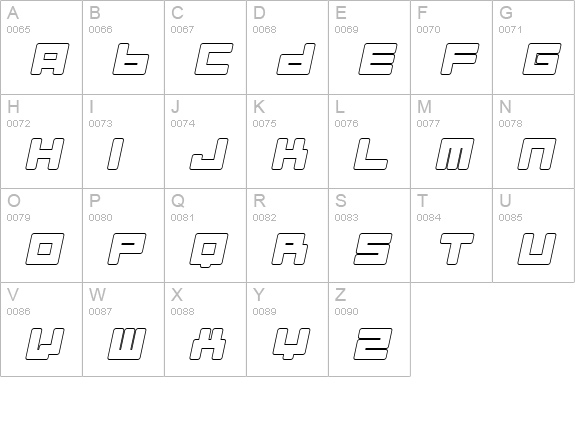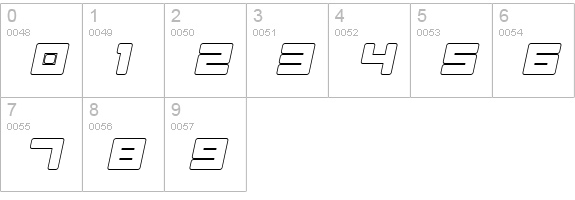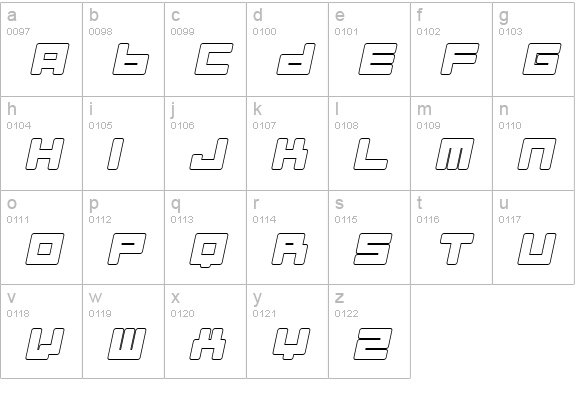
Almanaque Outline Italic Font Details
Almanaque Outline Italic is a distinctive, italic variant in the Almanaque typeface family \xE2\x80\x94 well suited to design and typography projects.
Almanaque Outline Italic font is a stylish and modern typeface that exudes sophistication and elegance. Its sleek lines and subtle curves make it perfect for a variety of design projects, from branding to editorial layouts. The italic style adds a touch of flair and uniqueness, making your text stand out beautifully. What makes Almanaque Outline Italic font even more appealing is that it is available for free download at FontsMarket.com. This means you can easily access this stunning font and use it in your projects without any cost. Don't miss out on this opportunity to elevate your designs with the exquisite Almanaque Outline Italic font - download it today and bring a touch of elegance to your creations!